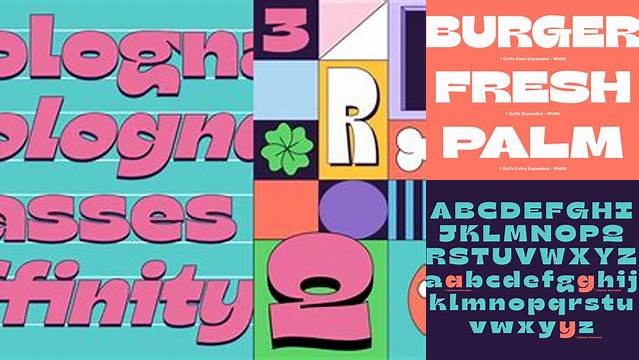
Gulfs Font: Free TTF Download For Your Designs
Hey guys! Are you on the hunt for a cool, eye-catching font to spice up your designs? Look no further! Today, we're diving deep into the world of Gulfs Display Font, a fantastic typeface that you can download for free in TTF format. Whether you're a seasoned designer or just starting, this font is a must-have in your toolkit. Let's explore everything about it, from its unique features to how you can use it to create stunning visuals. So, buckle up and get ready to unleash your creativity with Gulfs Font!
Gulfs Display Font: What Makes It Special?
Gulfs Display Font isn't just another typeface; it's a statement. Its distinctive design sets it apart, making it perfect for headlines, logos, and any project where you want to grab attention. The font features a bold, modern look with a touch of elegance, making it versatile for various design styles. It's clean, legible, and adds a professional yet creative flair to your work. What's more, the fact that you can download it for free makes it even more appealing. You get a high-quality font without breaking the bank. This accessibility allows designers of all levels to experiment and create stunning designs. The beauty of Gulfs Display Font lies in its adaptability. Whether you're working on a sleek, corporate project or a fun, whimsical design, this font can seamlessly integrate and enhance your visual communication. It embodies the essence of modern design trends, balancing readability with aesthetic appeal.
Using Gulfs Font for Logos: Making a Lasting Impression
A logo is the face of a brand, and the right font can make all the difference. Gulfs Display Font is an excellent choice for creating memorable and impactful logos. Its bold and distinctive letterforms ensure that your logo stands out, while its clean lines convey professionalism and trustworthiness. When using Gulfs Font for logos, consider the overall brand identity and choose a style that aligns with it. Experiment with different font weights and sizes to achieve the desired effect. Pair it with complementary colors and graphics to create a cohesive and visually appealing logo. Remember, a well-designed logo should be versatile enough to work across different platforms, from business cards to websites. Gulfs Font's adaptability makes it perfect for this purpose. It maintains its clarity and impact regardless of the size or medium, ensuring that your brand's message is consistently communicated. The font’s inherent elegance and modern appeal can elevate a logo from ordinary to extraordinary, leaving a lasting impression on your audience.
Headlines that Pop: Gulfs Font for Eye-Catching Titles
In the world of design, headlines are your first chance to grab attention. With Gulfs Display Font, creating eye-catching titles becomes a breeze. Its bold and modern aesthetic commands attention, making it perfect for posters, website headers, and magazine covers. The clean lines and distinct letterforms ensure readability even at larger sizes. When using Gulfs Font for headlines, play around with different font sizes and weights to create visual hierarchy. Use contrasting colors to make the text pop against the background. Experiment with different letter spacing and line heights to achieve the perfect balance. A well-crafted headline should not only be visually appealing but also convey the message clearly and concisely. Gulfs Font's inherent legibility ensures that your headlines are easy to read and understand, even from a distance. Its contemporary design adds a touch of sophistication, making your titles stand out from the crowd. The font's versatility allows it to adapt to various themes and styles, ensuring that your headlines always make a statement.
Web Design: Enhancing User Experience with Gulfs Font
In web design, typography plays a crucial role in user experience. A well-chosen font can enhance readability, improve navigation, and create a visually appealing website. Gulfs Display Font is an excellent choice for web design, thanks to its clean lines and modern aesthetic. It works well for both headlines and body text, creating a cohesive and professional look. When using Gulfs Font for web design, consider the overall design of the website and choose a style that complements it. Ensure that the font is legible across different devices and screen sizes. Use appropriate font sizes and line heights to improve readability. Test the font on different browsers to ensure compatibility. A well-designed website should be user-friendly and visually appealing. Gulfs Font's inherent legibility and contemporary design make it perfect for creating a positive user experience. Its versatility allows it to adapt to various website themes and styles, ensuring that your website always looks its best. The font’s clean and modern appearance can enhance the overall aesthetic, making your website more engaging and professional.
Graphic Design Projects: Unleashing Creativity with Gulfs Font
For graphic designers, having a versatile font in your arsenal is essential. Gulfs Display Font is a fantastic addition to any graphic designer's toolkit, offering a blend of modern and elegant aesthetics. Whether you're working on posters, flyers, brochures, or social media graphics, this font can elevate your designs. Its clean lines and bold presence ensure that your message is conveyed effectively. The fact that it’s a free TTF download makes it even more appealing, as it allows you to experiment without any financial commitment. When using Gulfs Font for graphic design projects, consider the overall theme and purpose of the design. Experiment with different font sizes, weights, and colors to create visual interest. Pair it with complementary graphics and images to create a cohesive and visually appealing composition. A well-designed graphic should be attention-grabbing and communicate the message clearly. Gulfs Font's inherent legibility and contemporary design make it perfect for achieving this goal. Its versatility allows it to adapt to various design styles, ensuring that your graphics always make a statement.
Gulfs Font for Branding: Creating a Cohesive Visual Identity
Branding is all about creating a consistent and recognizable visual identity. The right font can play a crucial role in achieving this, and Gulfs Display Font is an excellent choice for branding projects. Its modern and elegant aesthetic can help convey a sense of professionalism and trustworthiness. Whether you're designing a logo, business cards, or marketing materials, this font can help create a cohesive and impactful brand image. The clean lines and bold presence of Gulfs Font ensure that your brand stands out. When using Gulfs Font for branding, consider the overall brand values and target audience. Choose a style that aligns with the brand's personality and appeals to its target market. Use consistent font sizes, colors, and styles across all branding materials. A well-designed brand identity should be memorable and easily recognizable. Gulfs Font's inherent legibility and contemporary design make it perfect for achieving this goal. Its versatility allows it to adapt to various branding styles, ensuring that your brand always makes a strong impression.
Gulfs Font in Advertising: Attracting Attention and Conveying Message
In the competitive world of advertising, grabbing attention is the first step to success. Gulfs Display Font is a fantastic tool for creating impactful and attention-grabbing advertisements. Its bold and modern aesthetic commands attention, making it perfect for posters, billboards, and online ads. The clean lines and distinct letterforms ensure that your message is conveyed effectively. The advantage of a free TTF download means you can test and implement the font without any initial investment. When using Gulfs Font in advertising, consider the target audience and the message you want to convey. Use large font sizes and contrasting colors to make the text stand out. Pair it with compelling visuals to create a cohesive and visually appealing advertisement. A well-designed advertisement should not only attract attention but also communicate the message clearly and persuasively. Gulfs Font's inherent legibility and contemporary design make it perfect for achieving this goal. Its versatility allows it to adapt to various advertising styles, ensuring that your ads always make a strong impact.
Gulfs Font: A Designer's Best Friend
In conclusion, Gulfs Display Font is a fantastic resource for designers of all levels. Its modern aesthetic, clean lines, and free availability make it an excellent choice for a wide range of projects. Whether you're designing logos, headlines, or social media graphics, Gulfs Font can help you create visually stunning and effective designs. So, download it today and start unleashing your creativity!